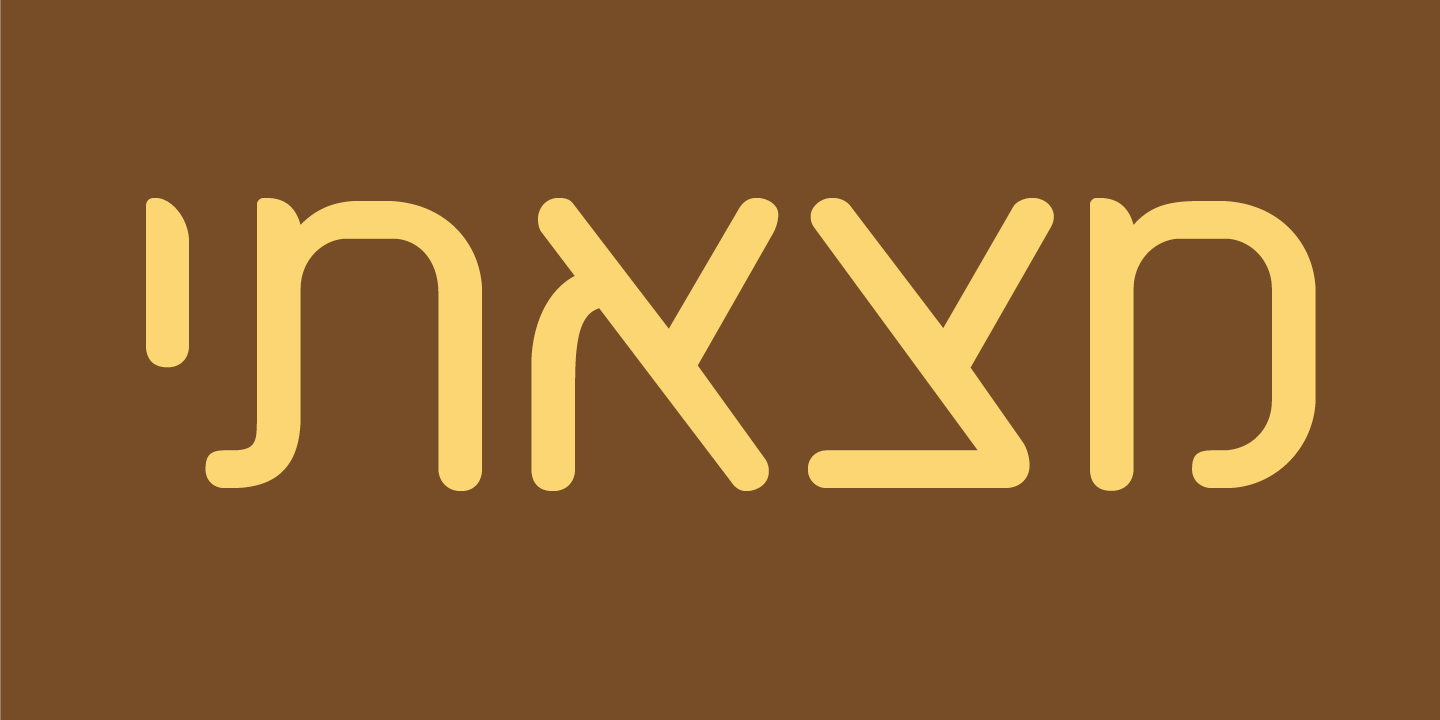
Alifut MF Font is perfect for Hebrew publishing projects, Middle Eastern cultural organizations, bilingual corporate communications, religious institution materials, Israeli business branding, Jewish community publications, educational materials, cultural heritage exhibitions, ceremonial documents, and authentic Middle Eastern marketing campaigns. This sophisticated typeface excels in environments where Hebrew typography authenticity and cultural sensitivity are paramount for effective communication.
What makes Alifut MF Font exciting is its masterful balance of traditional Hebrew calligraphic principles with contemporary design functionality, creating a typeface that honors Jewish cultural heritage while meeting modern communication requirements. The font features elegantly crafted Hebrew letterforms that maintain authentic script characteristics while ensuring exceptional readability across digital and print applications. This cultural authenticity makes it ideal for organizations seeking to communicate respect for Hebrew traditions while establishing professional credibility.
Alifut MF Font family includes Light, Regular, Medium, Bold, Black, and corresponding variations optimized for Hebrew script flow and traditional typography principles. Each weight preserves the font's distinctive Hebrew aesthetic while offering comprehensive flexibility for creating sophisticated bilingual typographic systems that honor both Hebrew and Latin script traditions.
The Alifut MF Font Free Download provides designers with access to a premium Hebrew typeface that represents authentic Middle Eastern typography design excellence. This font's cultural significance and technical precision make it particularly valuable for Jewish organizations, educational institutions, and international businesses requiring authentic Hebrew communication for Middle Eastern markets.
Typography specialists recognize the font's superior implementation of Hebrew design principles, including proper letter spacing, authentic character proportions, and optimized right-to-left text flow that respects traditional Hebrew aesthetic standards while ensuring contemporary functionality and international compatibility.
When implementing Alifut MF Font in design projects, the results consistently demonstrate both cultural authenticity and professional quality. The font's traditional yet accessible personality makes it particularly effective for brands in education, religion, culture, and international business where Hebrew heritage and cultural sensitivity are essential brand attributes.
For digital environments, Alifut MF Font renders beautifully across all platforms, maintaining its authentic Hebrew character and cultural integrity from mobile interfaces to large-scale digital displays while supporting proper right-to-left text direction requirements.
Cultural organizations consistently select Alifut MF Font for projects requiring authentic Hebrew typography and cultural sensitivity, where standard fonts cannot capture the desired respect for Jewish heritage and professional communication standards in Hebrew-speaking communities.